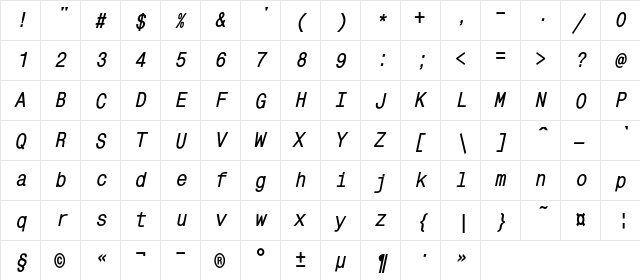
MonoCondensedC Bold Italic Font Preview
Design Context for MonoCondensedC Typeface
MonoCondensedC uses fixed-width spacing throughout, giving it the structured, systematic character associated with coding environments and technical documentation. The dynamic lean of this cut emphasises speed and emphasis in any layout. The heavy weight commands attention and anchors typographic hierarchies.
Pro Tip: Use MonoCondensedC with slightly increased line-height for extended reading — fixed-width spacing can feel dense in longer passages without extra breathing room.